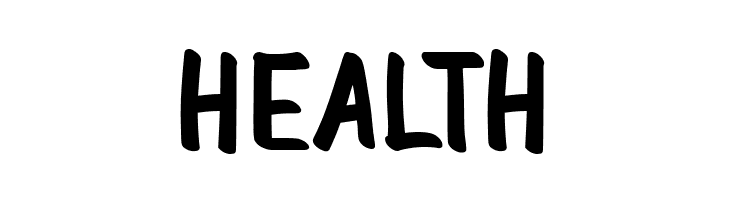
A playful, handwritten script font with bold strokes and smooth curves.
A playful, handwritten font with tall, narrow letters and decorative elements.
A playful, handwritten font with a smooth, marker-like appearance.
An elegant, flowing script font with bold, confident strokes.
A bold, dynamic script font with a handwritten appearance.
A bold, italic script font with a dynamic and fluid style.
A playful and decorative font with whimsical swashes and flourishes.
A whimsical, hand-drawn font with playful, irregular letterforms.
A playful, handwritten font with fluid strokes and a casual style.
A bold, geometric font with rounded shapes and a modern, playful style.
A bold, textured font with a playful, fuzzy outline.
A bold, decorative font with a double-line, geometric design.
An elegant, flowing script font with a handwritten style.
A bold, playful, hand-drawn font with a whimsical style.
A lively, expressive handwritten font with fluid strokes and artistic flair.
A modern, geometric font with bold, rounded edges and a clean, structured appearance.
A lively handwritten font with fluid, dynamic strokes and a slight slant.
A whimsical, curly font with a playful, handwritten style.
A graceful monoline script font with smooth, flowing lines and elegant curves.
A bold, textured font with a modern and decorative style.
A festive, cursive script font with bold, flowing strokes and elegant connections.
A dynamic and energetic script font with fluid, swift strokes.
A bold, hand-drawn font with a playful, sketch-like texture.
A lively, handwritten script font with bold, expressive characters.
A spooky, dripping font perfect for Halloween themes.
A playful, spooky font with bold, rounded, and irregular edges.
A playful, spooky font with dripping, melting shapes.
A playful, spooky font with quirky, uneven letterforms and bold strokes.
A bold, playful font with a hand-drawn, spooky aesthetic.
A pixelated, ghost-themed font with a retro arcade style.